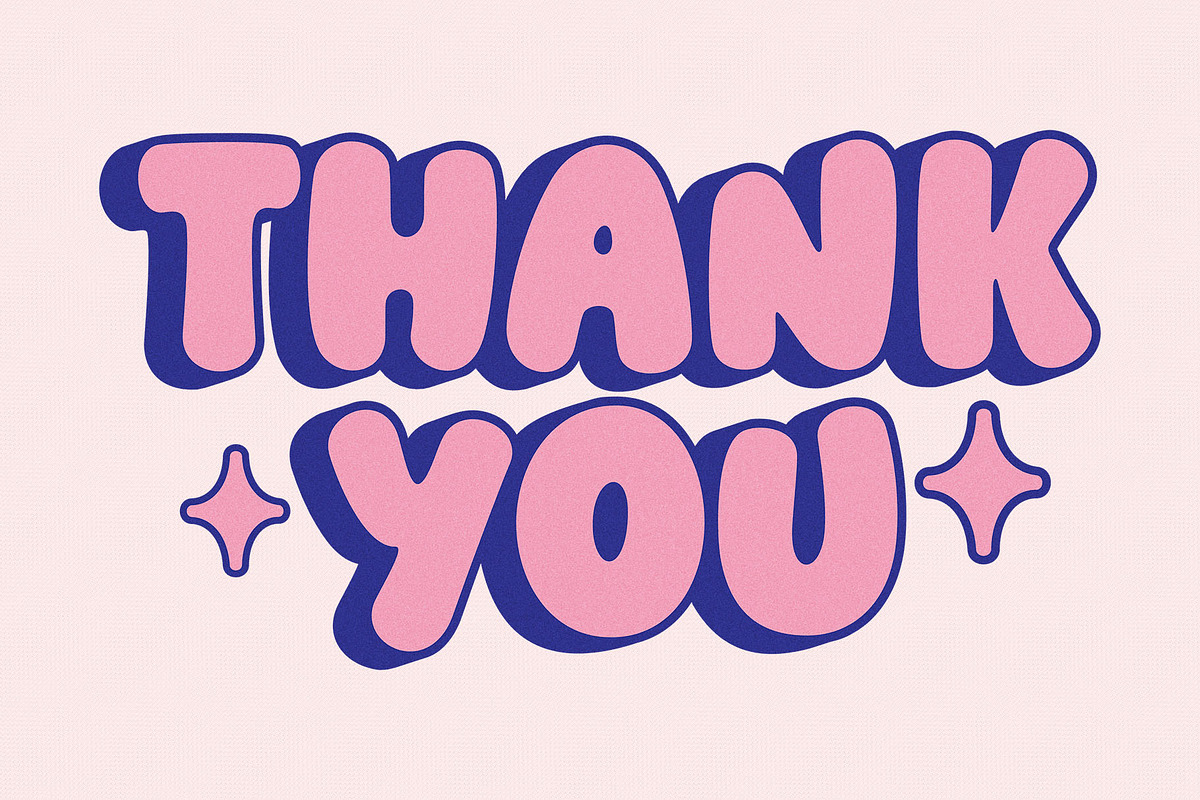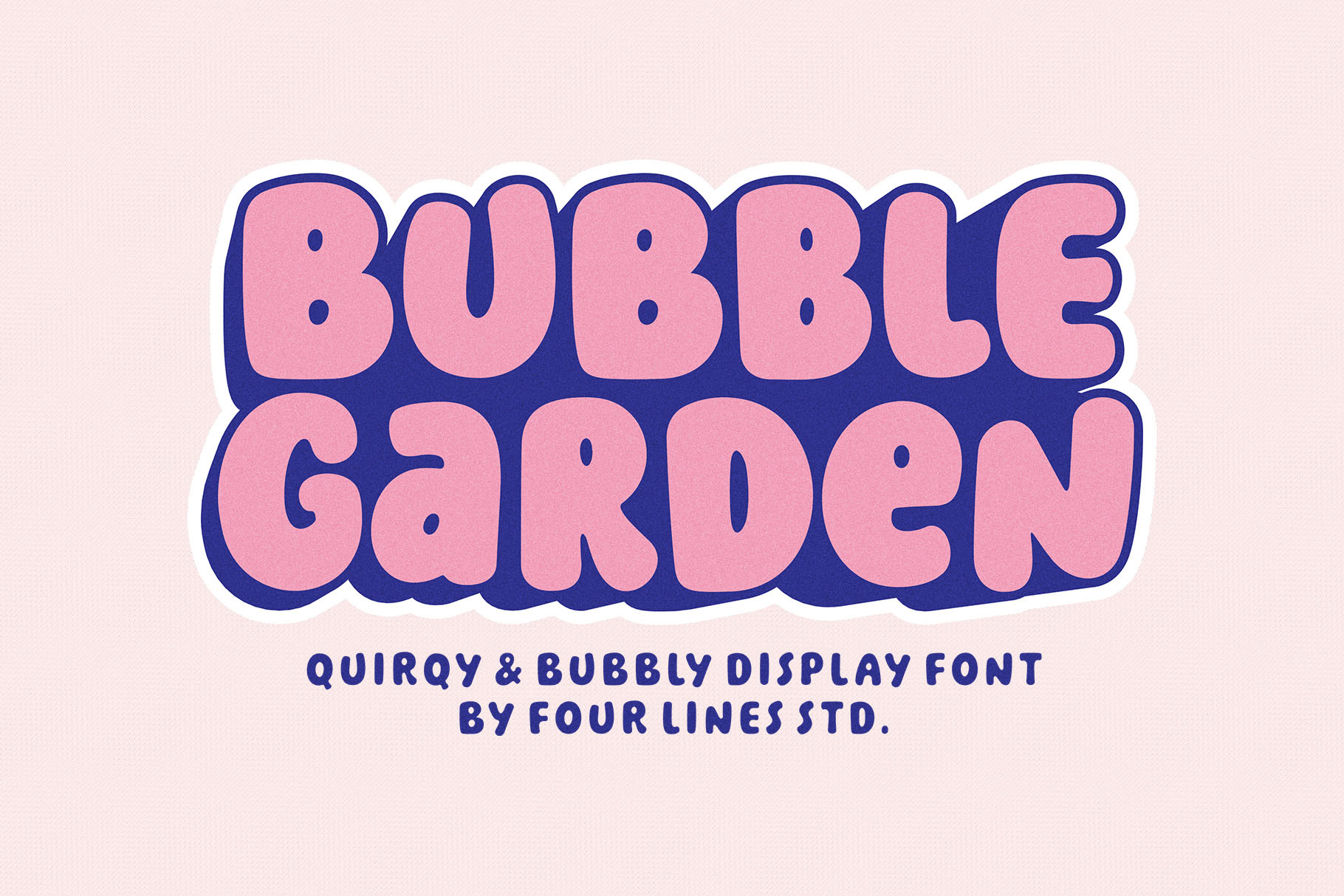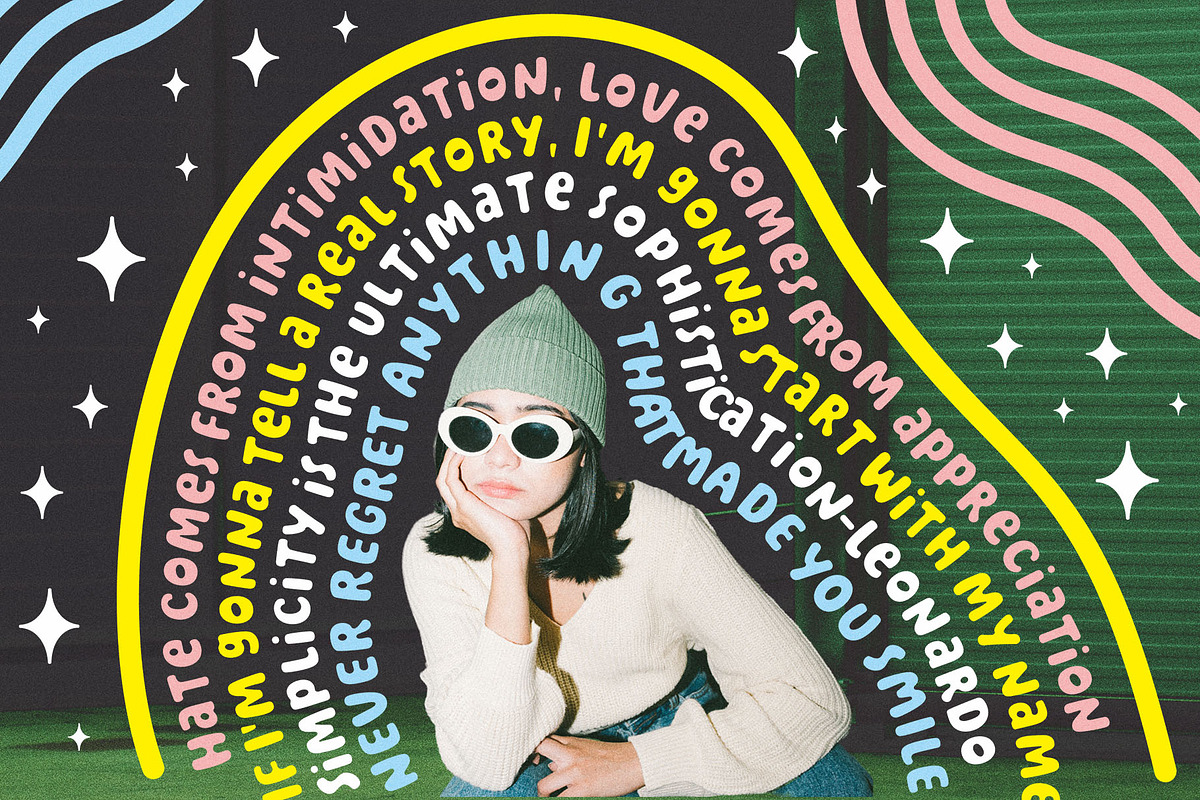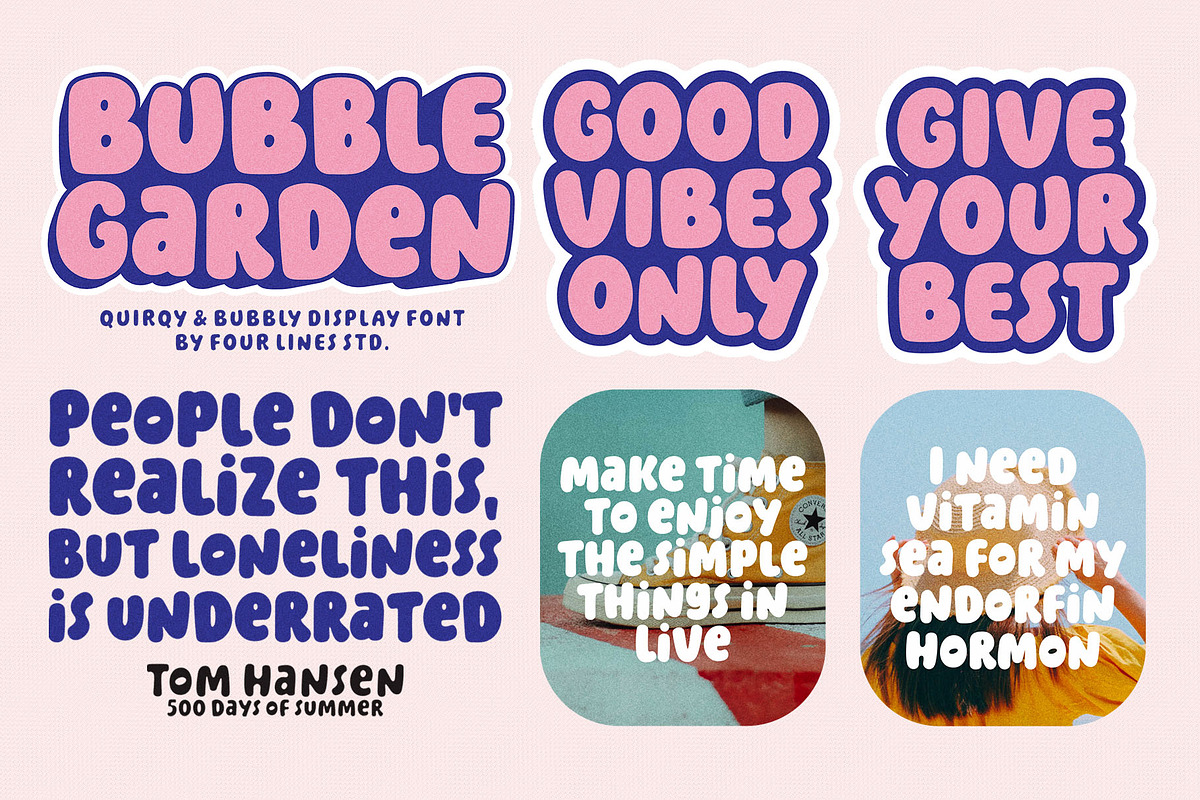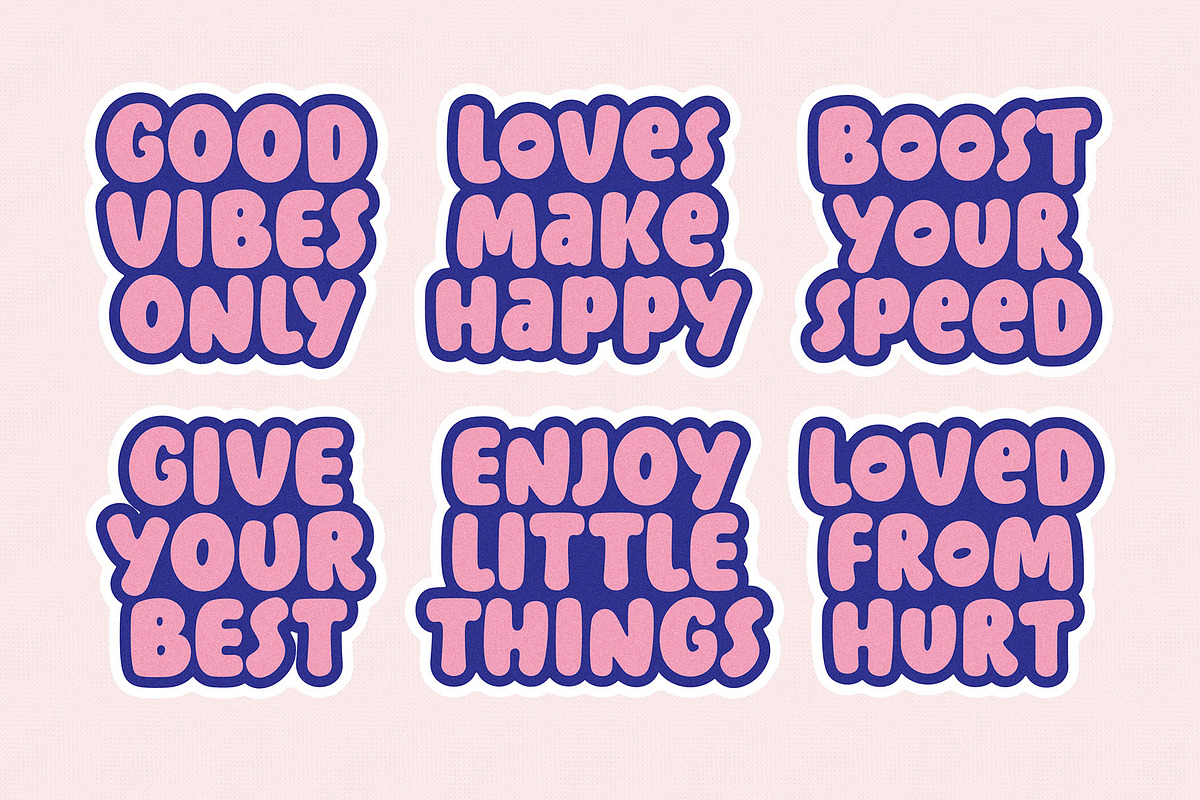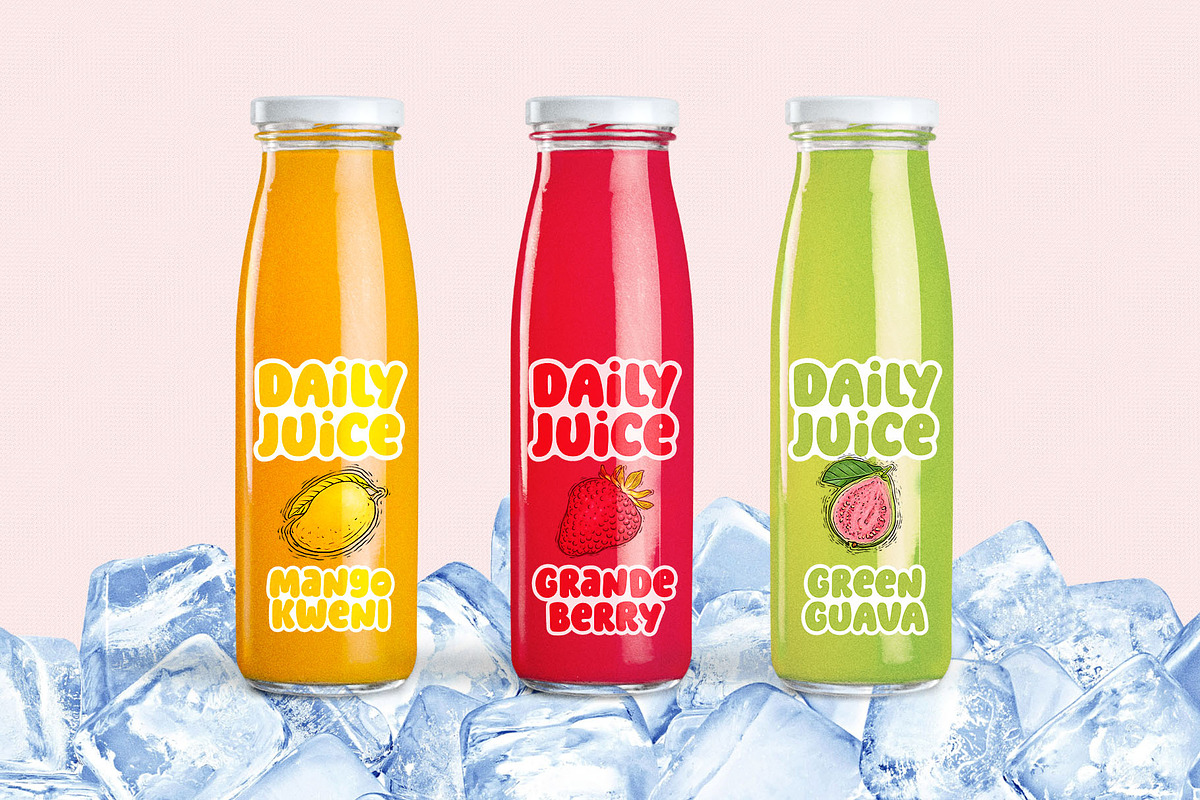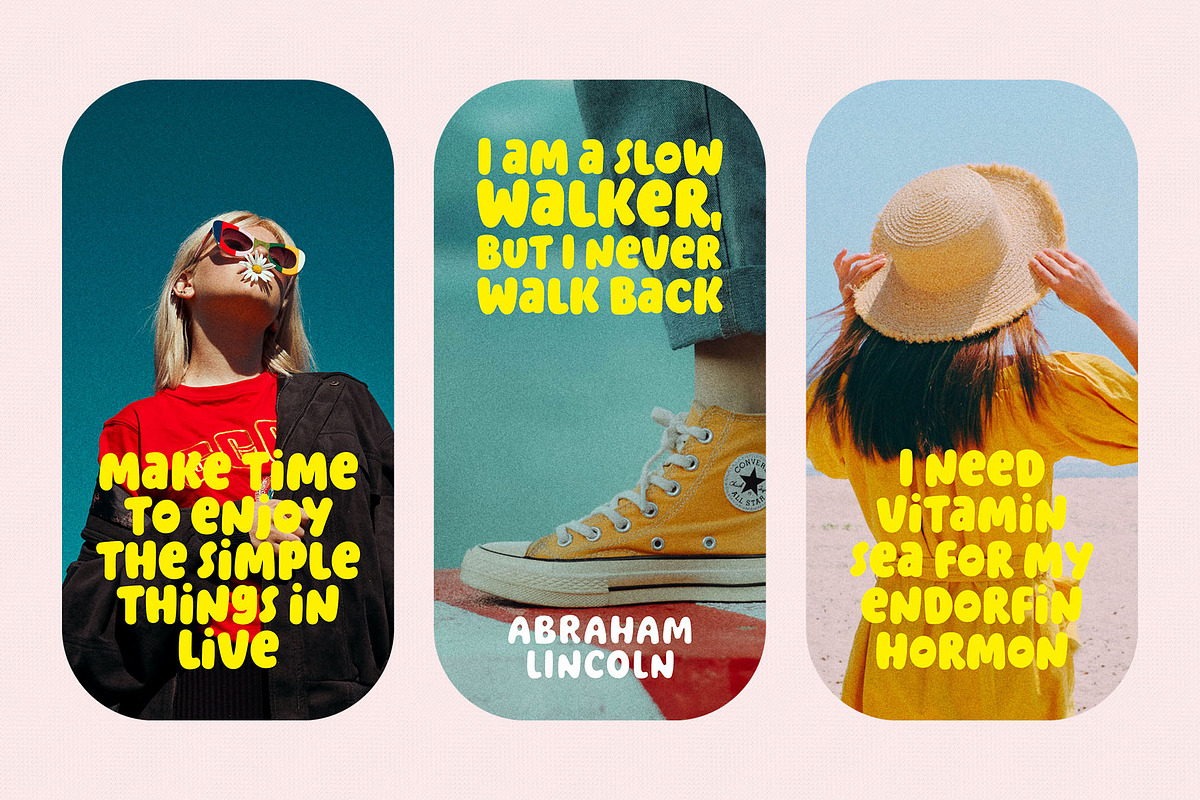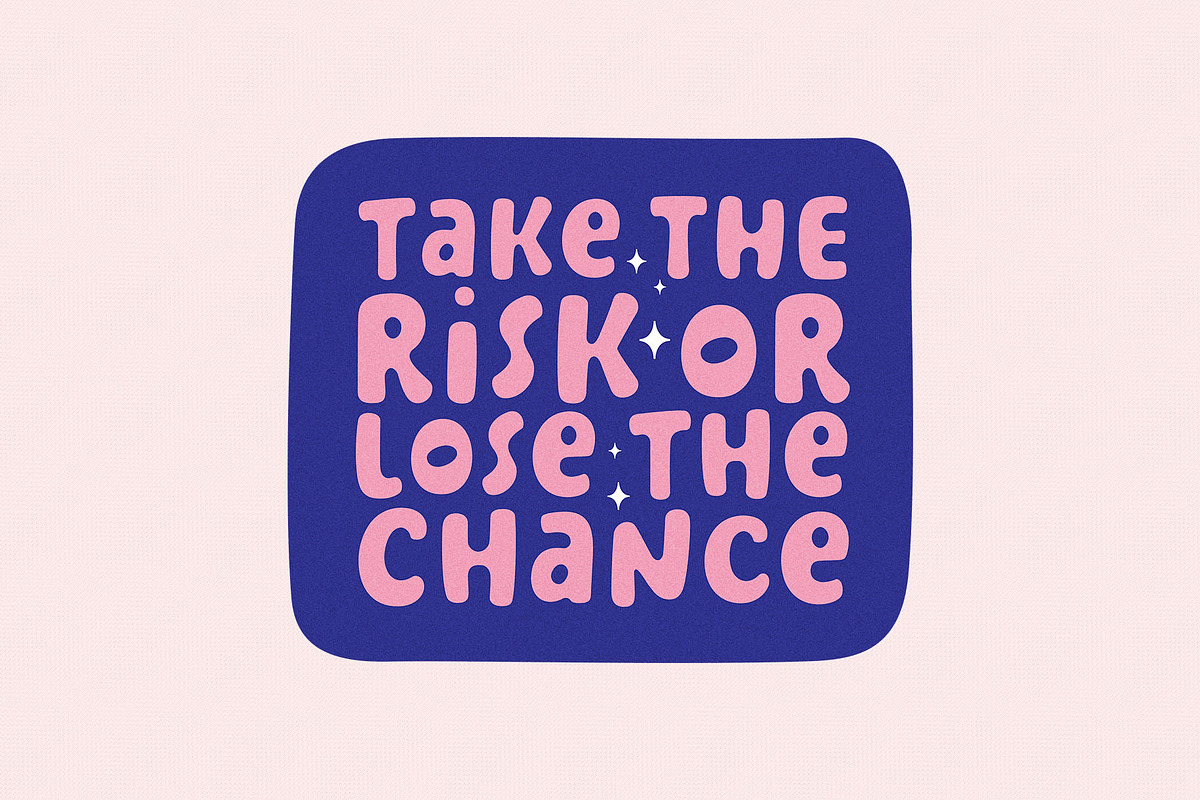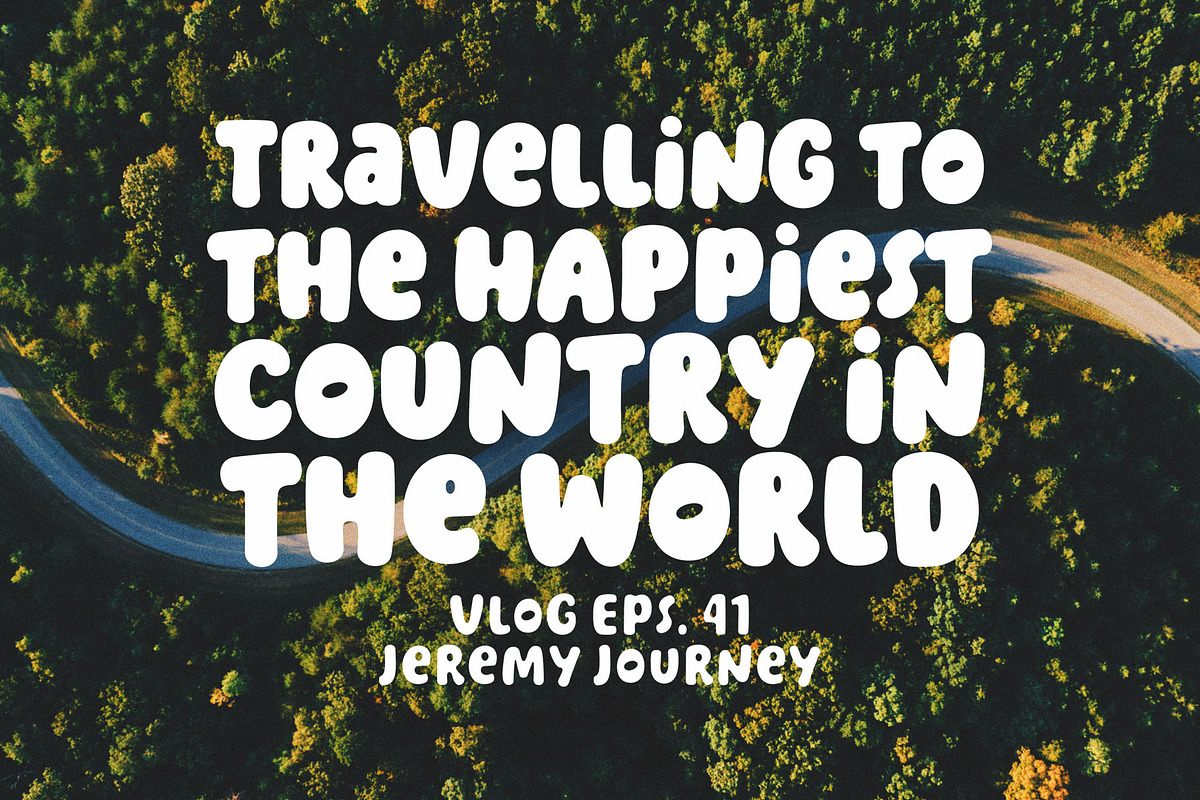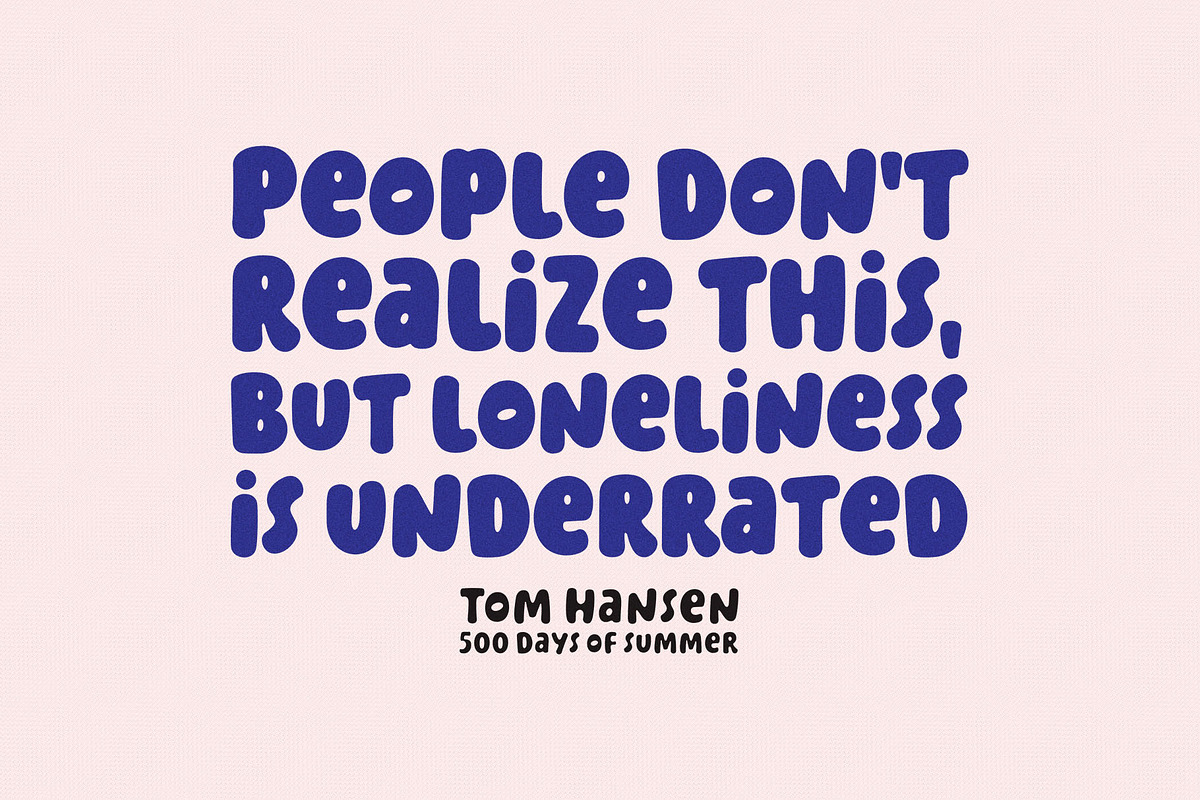
Bubble Garden - Playful Bubble Font
Introducing "Bubble Garden" Font - Where Whimsy Meets Readability! Bubbling with Charm: "Bubble Garden" captures the essence of joy and creativity. Its rounded, bubble-inspired letters are like a burst of laughter on your screen or paper. Whether it's for party invitations, children's books, social media content, posters, sticker, thubnail or anything that needs a dose of fun, this font has got you covered.